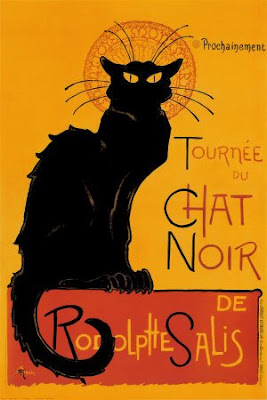
I used to feel a bit envious whenever I saw this poster in a friend's room, and wished that I could have it too! But I could never quite put my finger on why I liked it. I'm not really that enamoured by the colours and, whilst I do love cats, this one looks a bit scary. So for ages, my love for this poster went rather unexplained. Until now. Until I started with the Creative Type. It's the font!! Look how cool it is. Very old looking, very French. I love it! I don't know why I didn't realise that before! But it's not very intricate, so you could easily draw similar type yourself. I might try it!
definitely going to try to recreate the font myself!